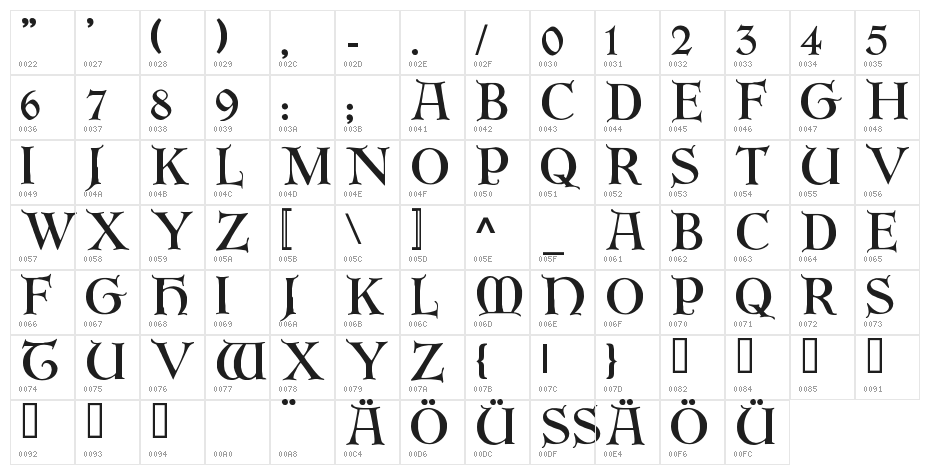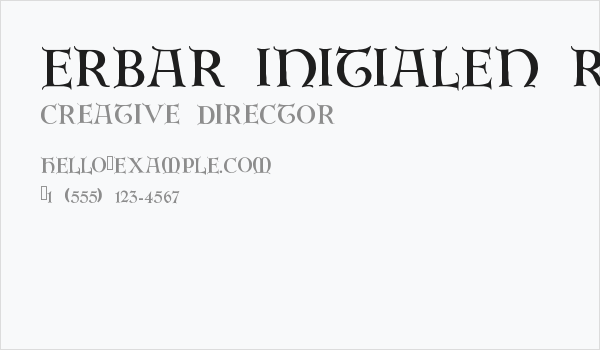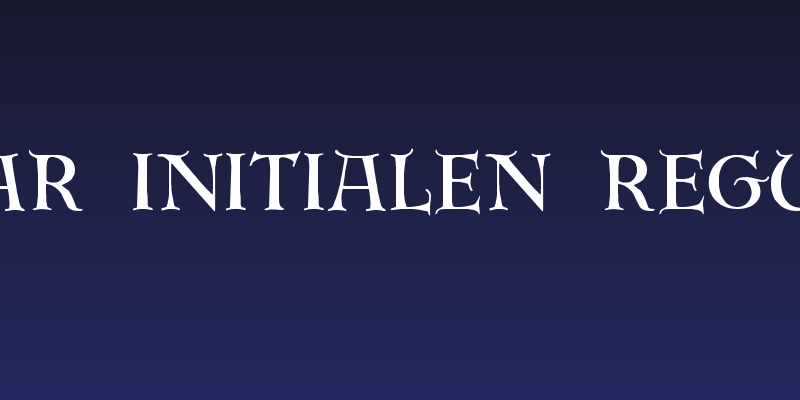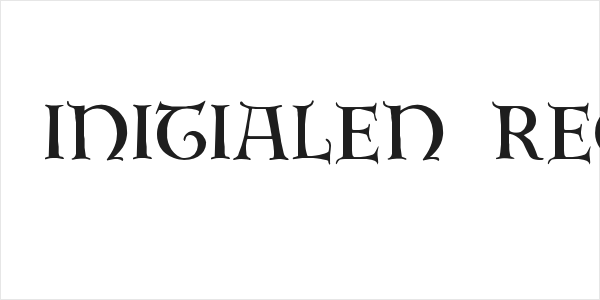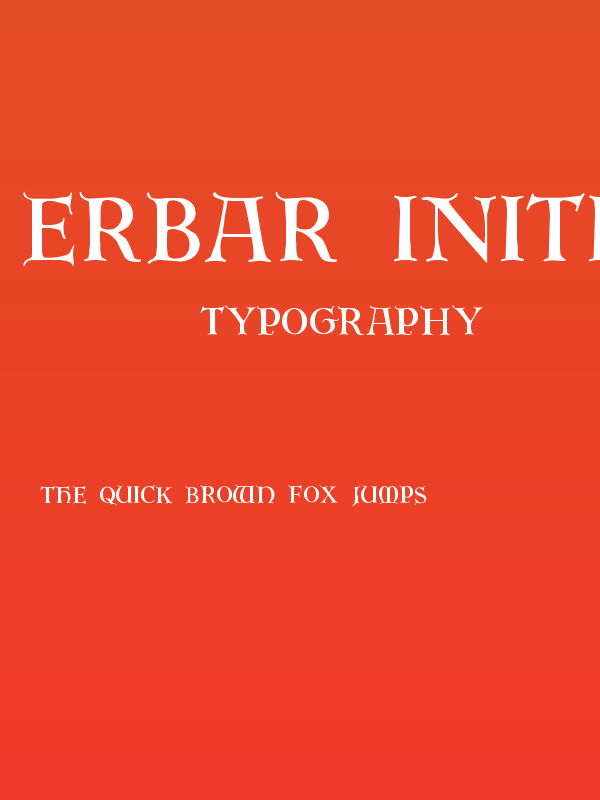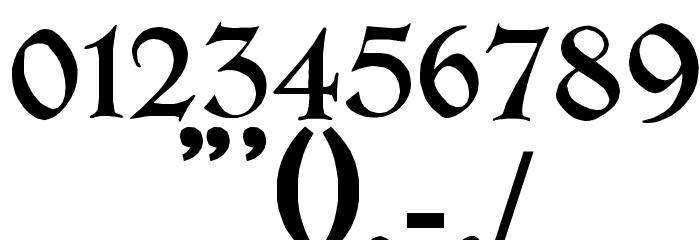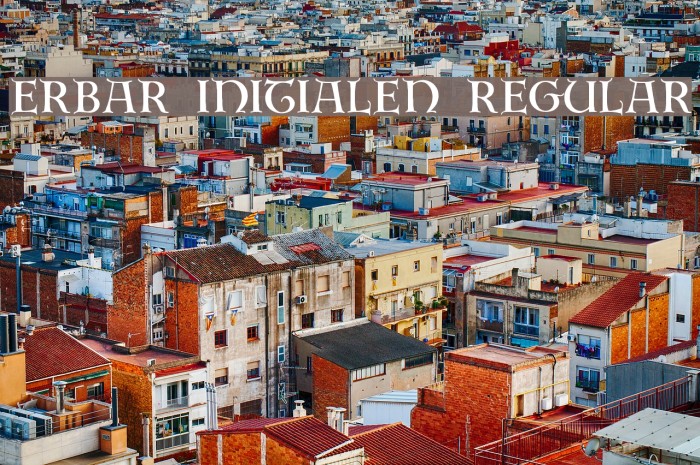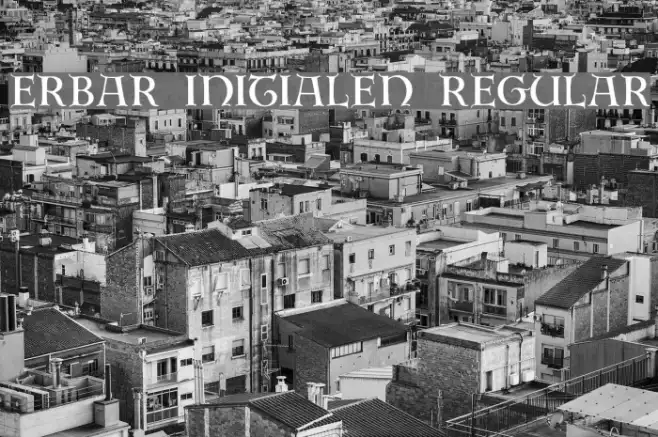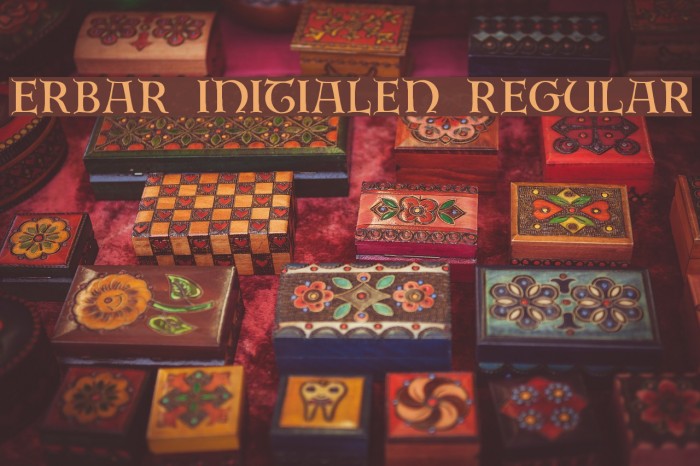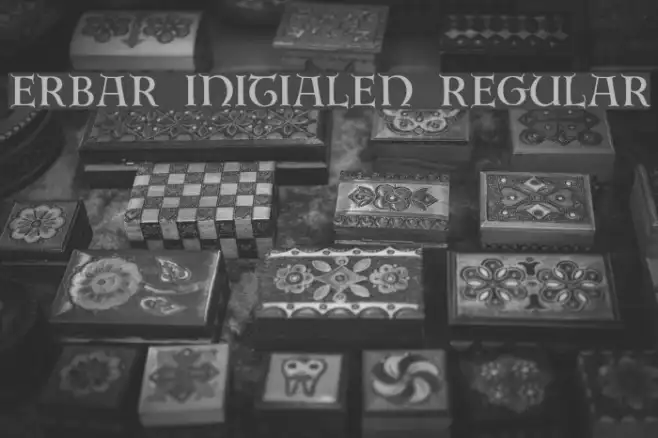
Erbar Initialen Regular Font
Erbar Initialen Regular Description
This font features a classic and elegant design, reminiscent of traditional serif styles with a touch of decorative flair. The characters are well-defined with sharp serifs and a slight curvature that adds a sense of sophistication. The uppercase letters are bold and commanding, while the lowercase letters maintain a consistent style that complements the overall aesthetic. The numerals are distinct and easy to read, with a unique style that matches the letterforms. Special characters are included, maintaining the font's cohesive look. This font is ideal for projects that require a touch of elegance and tradition.
| Proposed Projects | Perfect for invitations, formal documents, branding, and editorial design. |